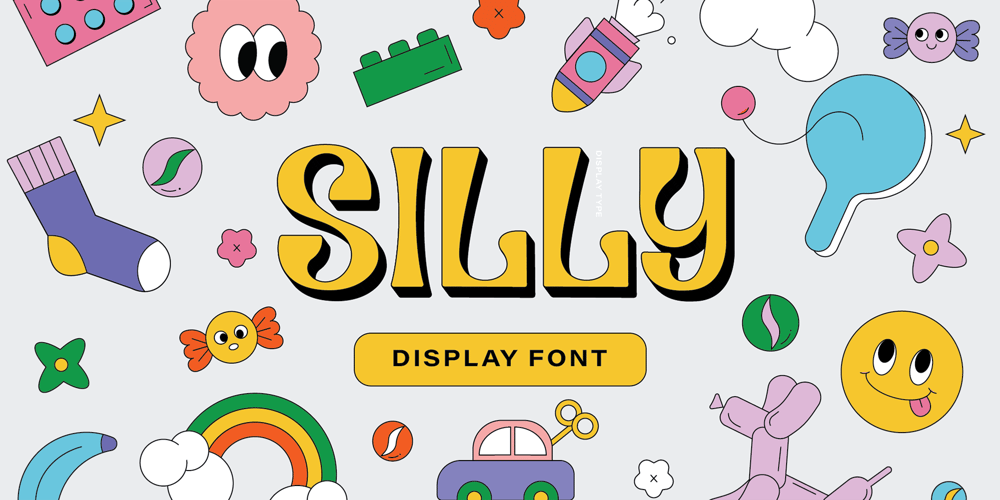
CS Silly
CS Silly font
CS Silly Font Family was designed by Yas Liamco and published by Cocomilk Studio. CS Silly contains 1 styles and family package options. SILLY is Cocomilk Studio’s first homegrown typeface. This typeface, made by Cocomilk designer, Yas Liamco, features curvy, drooping forms and rounded edges that add a sense of fun and silliness to any project!